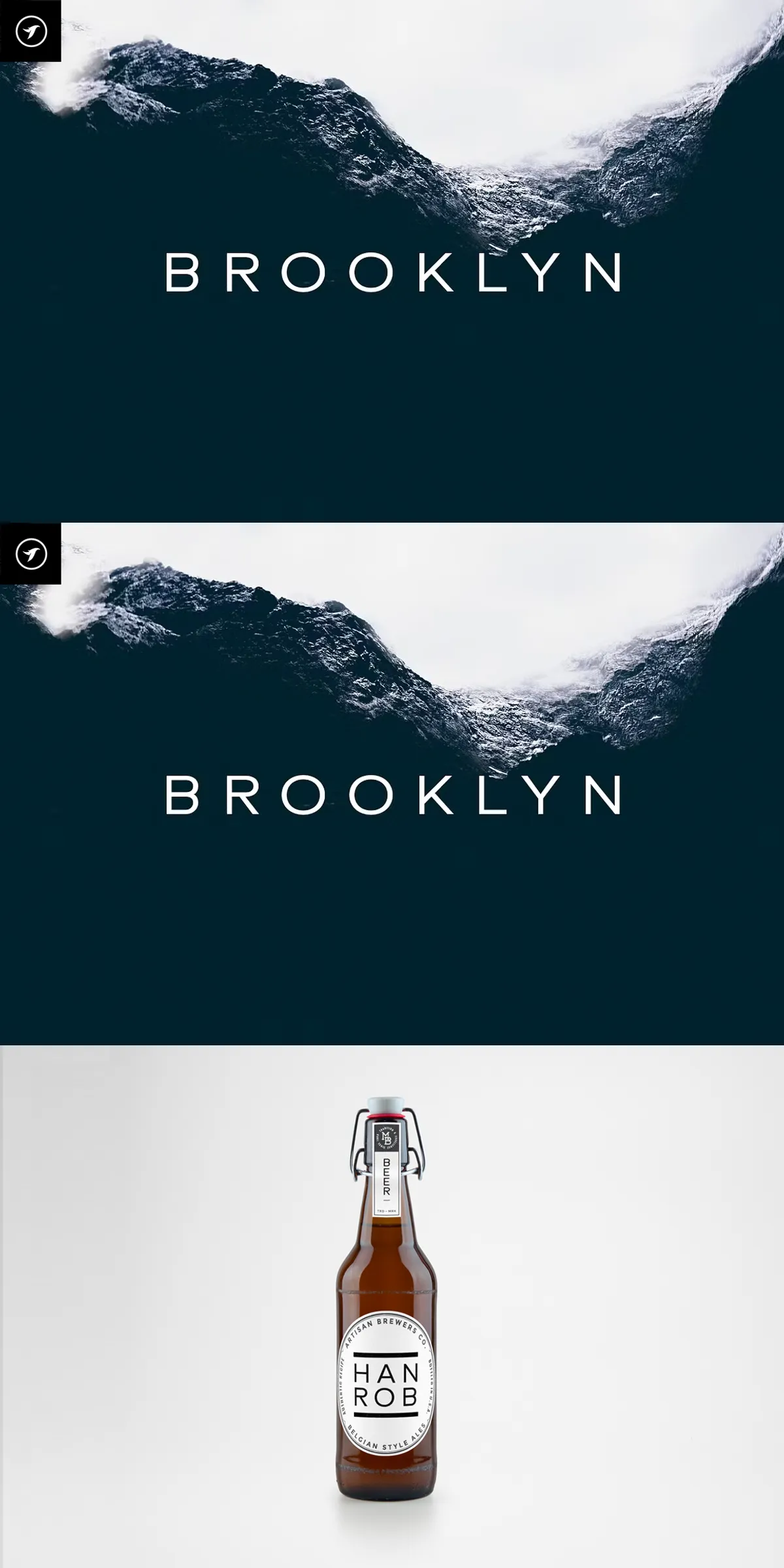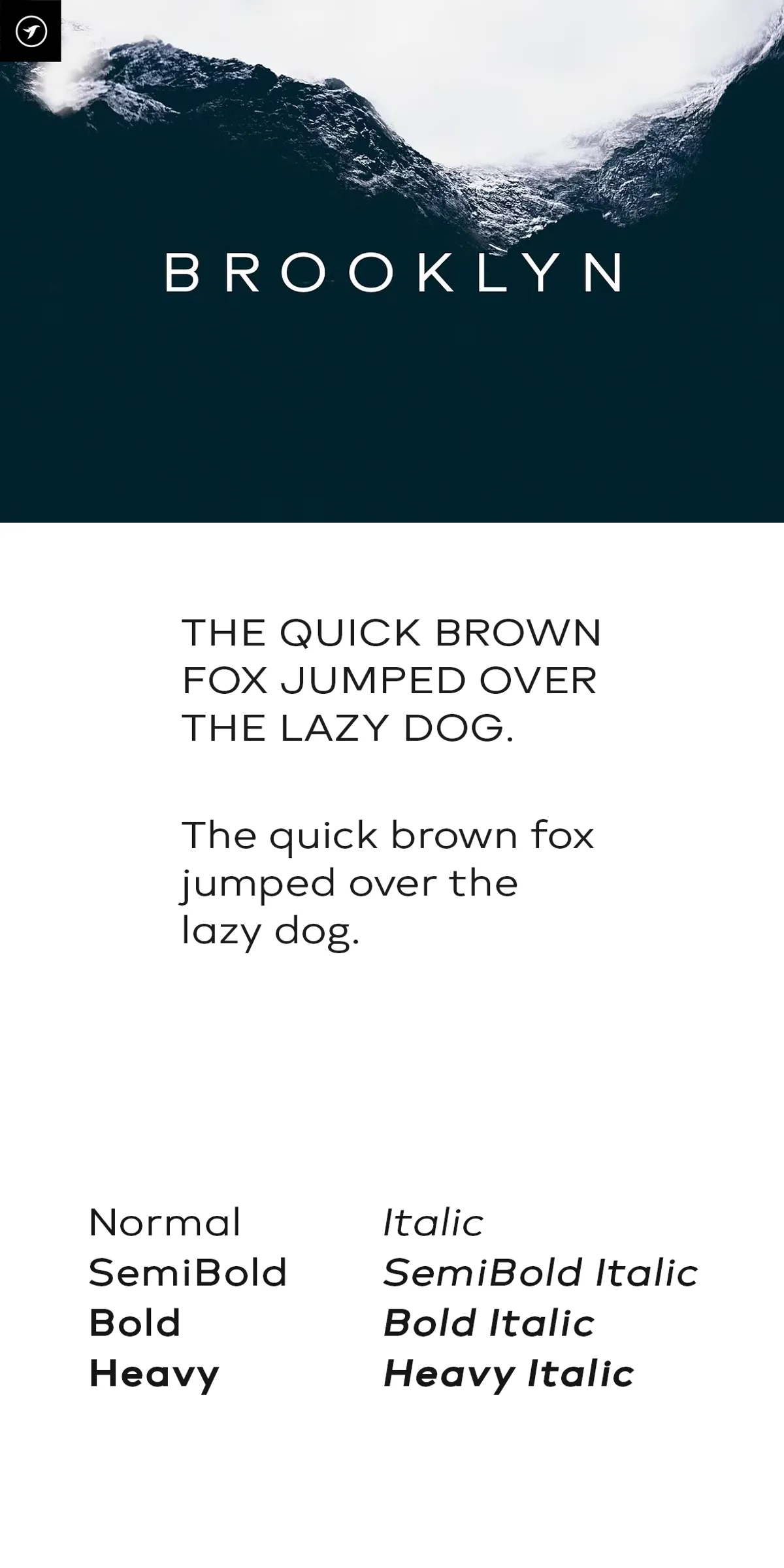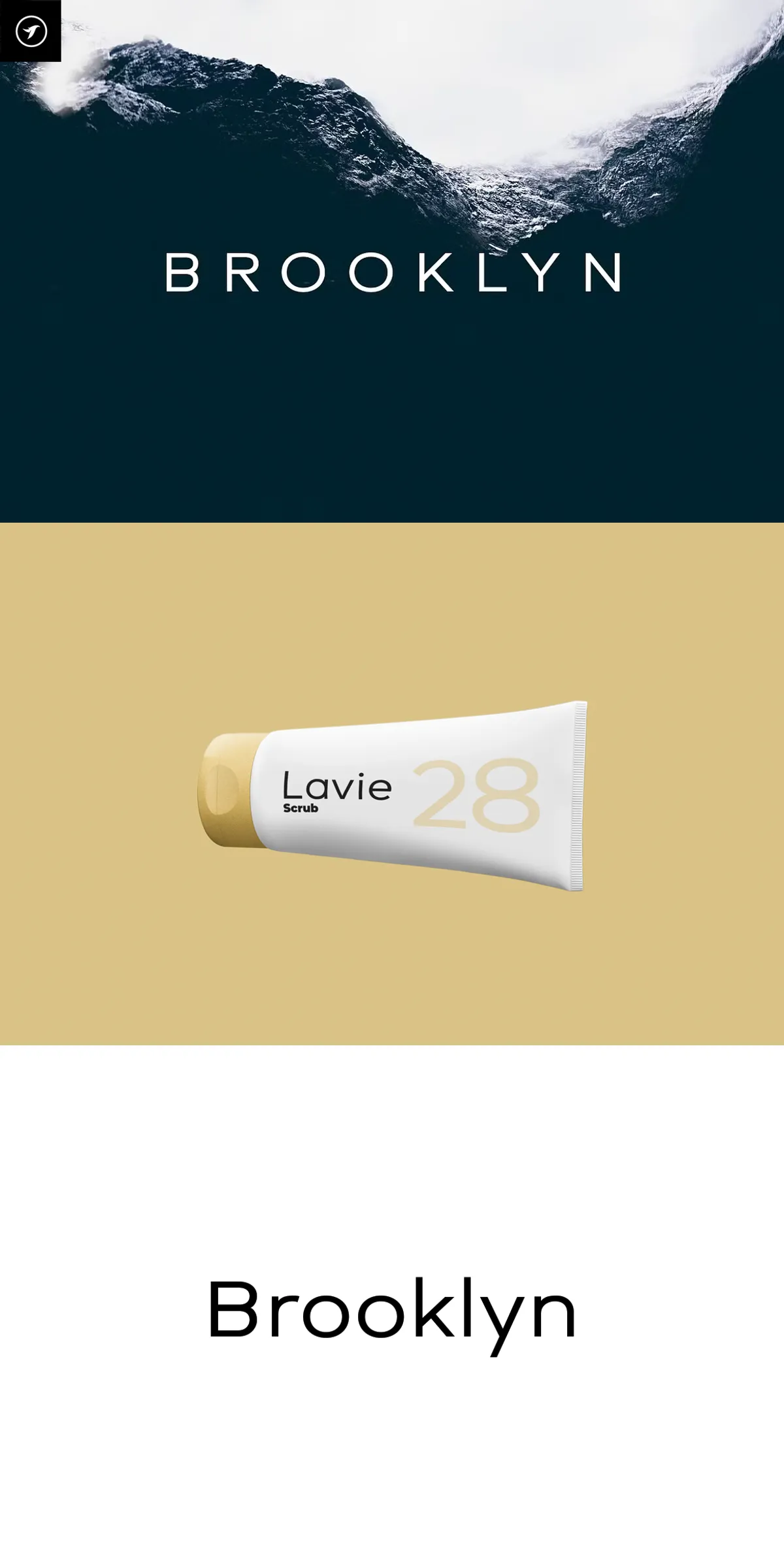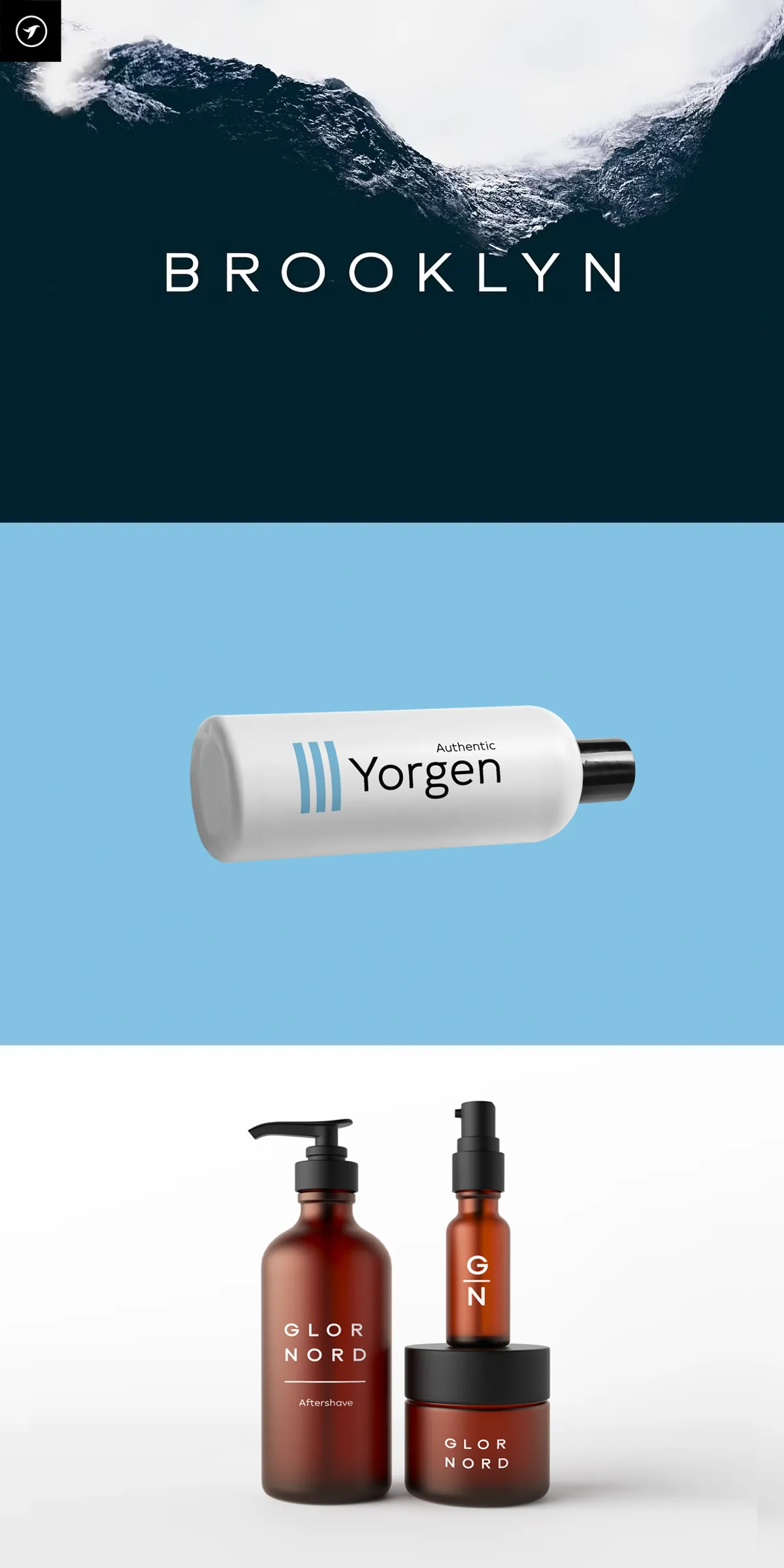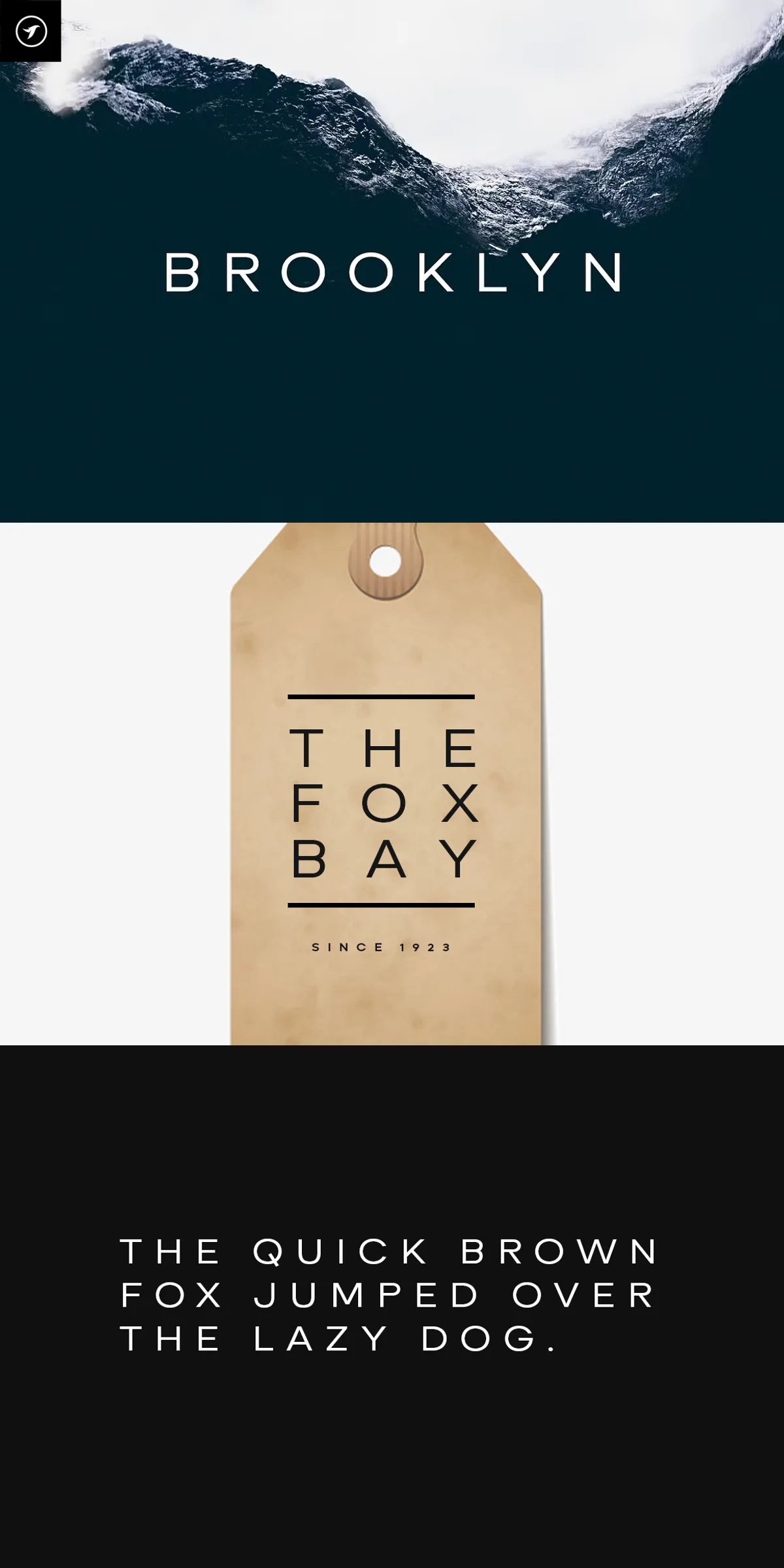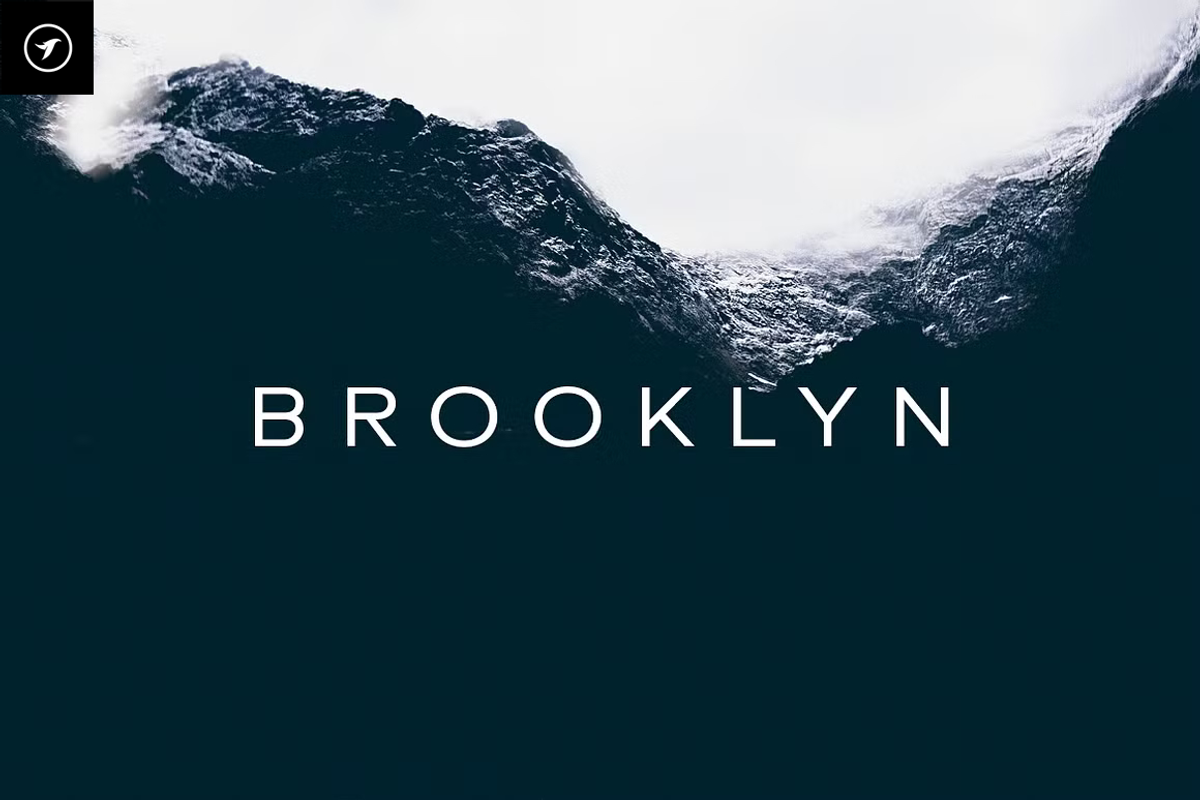
Unlock the full potential of modern design with Brooklyn—a sleek, geometric Sans-Serif typeface family engineered for impact, clarity, and timeless elegance. Built on the foundation of classic minimalism, Brooklyn transforms headlines, logotypes, and brand identities into visual statements that demand attention. Whether you’re designing a fashion e-commerce site, a high-end portfolio, or a bold branding campaign, this typeface delivers the precision and personality your project deserves.
- 8 distinct font variations: Normal, Semi Bold, Bold, and Heavy weights—each with their corresponding italics.
Designed for the Modern Era, Built for Real-World Use
Brooklyn is more than just a pretty face—it’s a functional powerhouse. Inspired by the clean lines and geometric precision of timeless design, it’s engineered for the digital age: sharp, readable, and infinitely adaptable across platforms and screen sizes.
- Create stunning, space-enhancing headlines for fashion websites and digital portfolios.
- Build powerful brand identities with striking logotypes that stand out in saturated markets.
- Generate bold, minimalist posters, social media visuals, and editorial layouts.
- Optimize typography with letter-spacing—just a few pixels can transform a simple line into something extraordinary.
Its balanced contrast and open counters make it equally effective at small sizes and large displays. The result? Typography that performs flawlessly—whether on a mobile screen or a printed brochure.
Enhanced with Multilingual Support & Advanced Features
With a total of 239 glyphs packed into each font, Brooklyn handles complex text layouts with ease—accurately rendering punctuation, numerals, fractions, and diacritics across languages like German, French, Polish, Czech, and Serbian.
Built with OpenType features, Brooklyn supports access to stylistic alternates, ligatures, and swash forms—perfect for designers who want to customize their typography without leaving their design tool.
In a world of overused, generic fonts, Brooklyn stands out not with gimmicks—but with substance. It’s a typeface that says: “less is more”, but without sacrificing character.